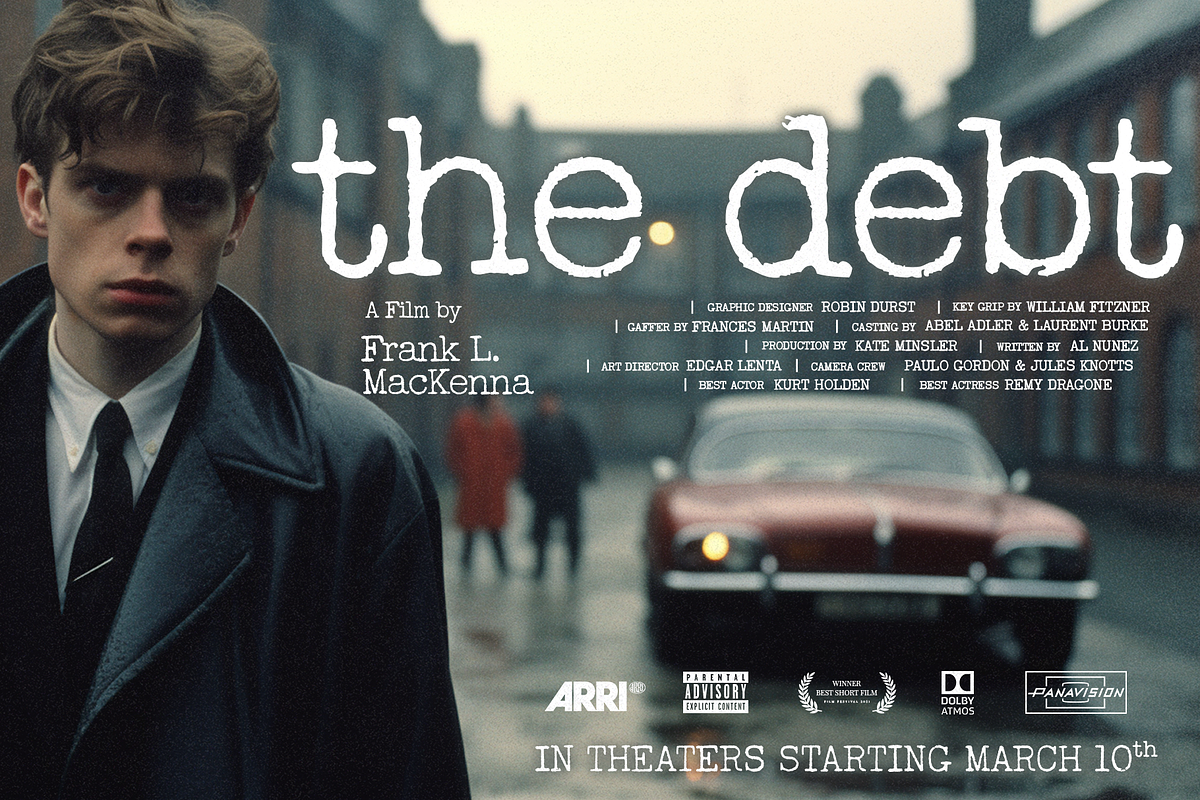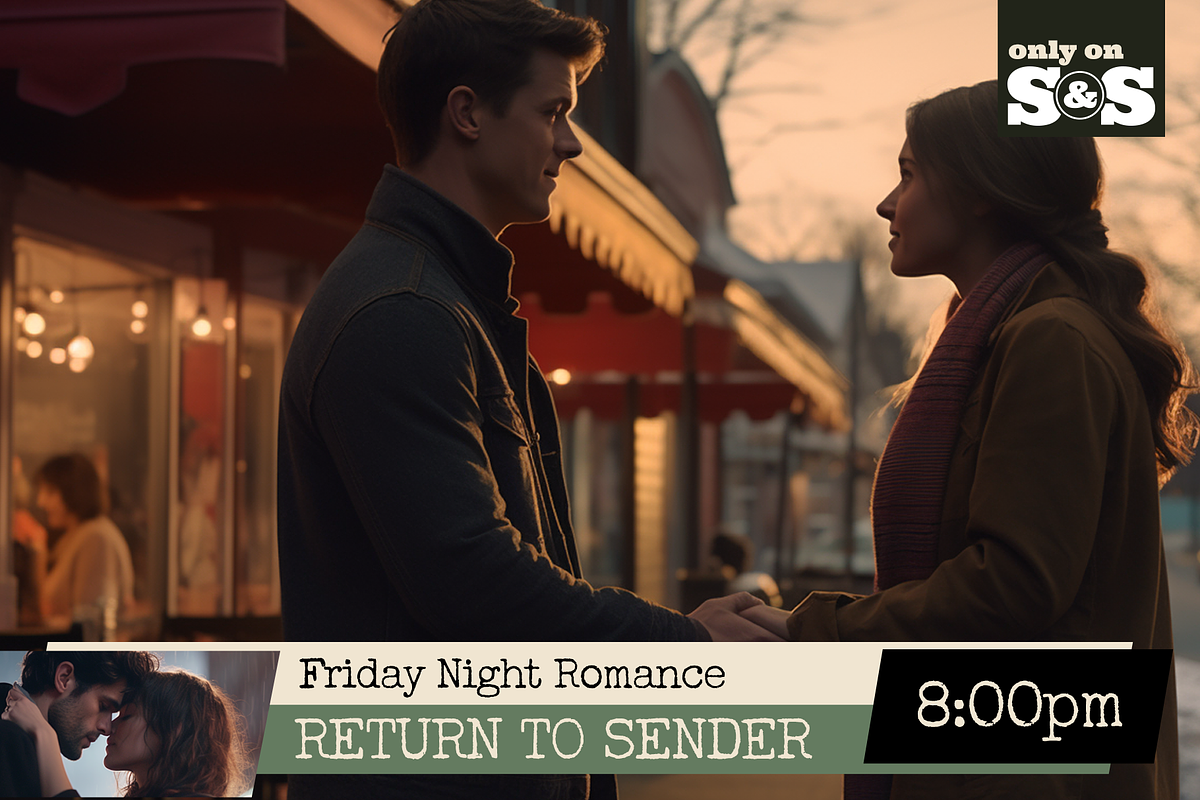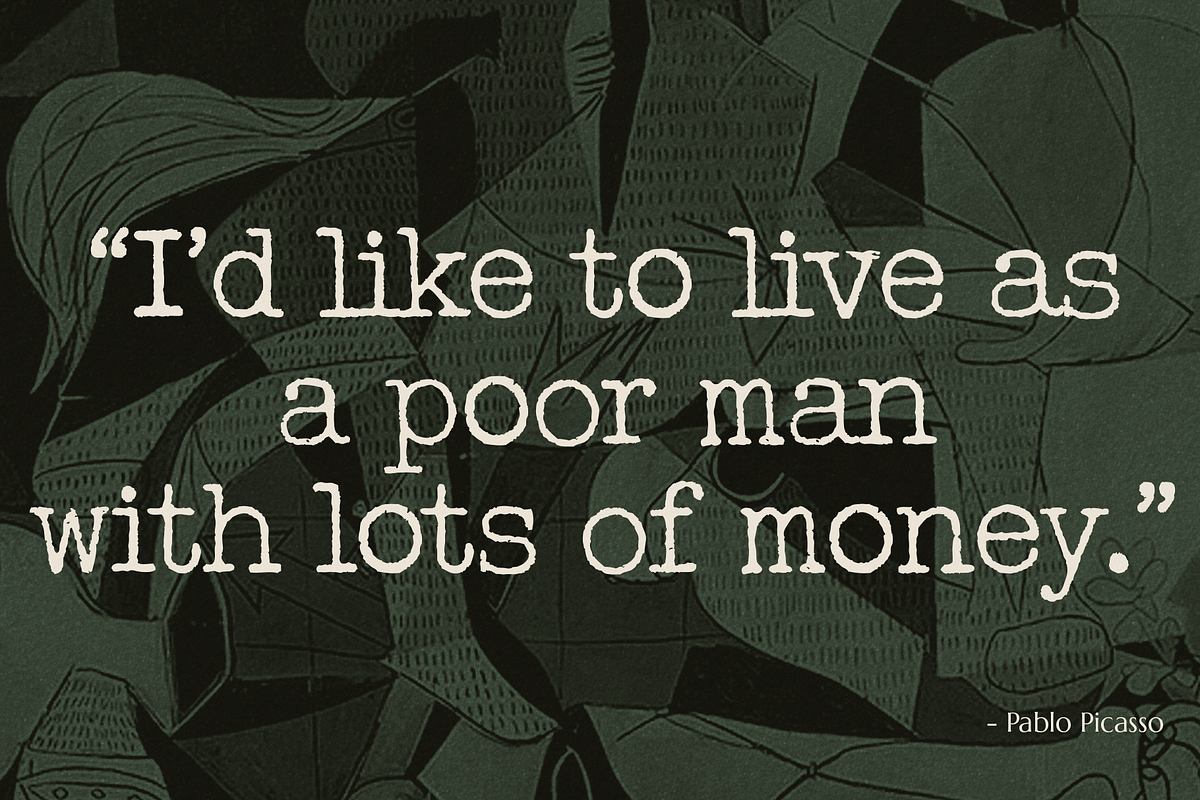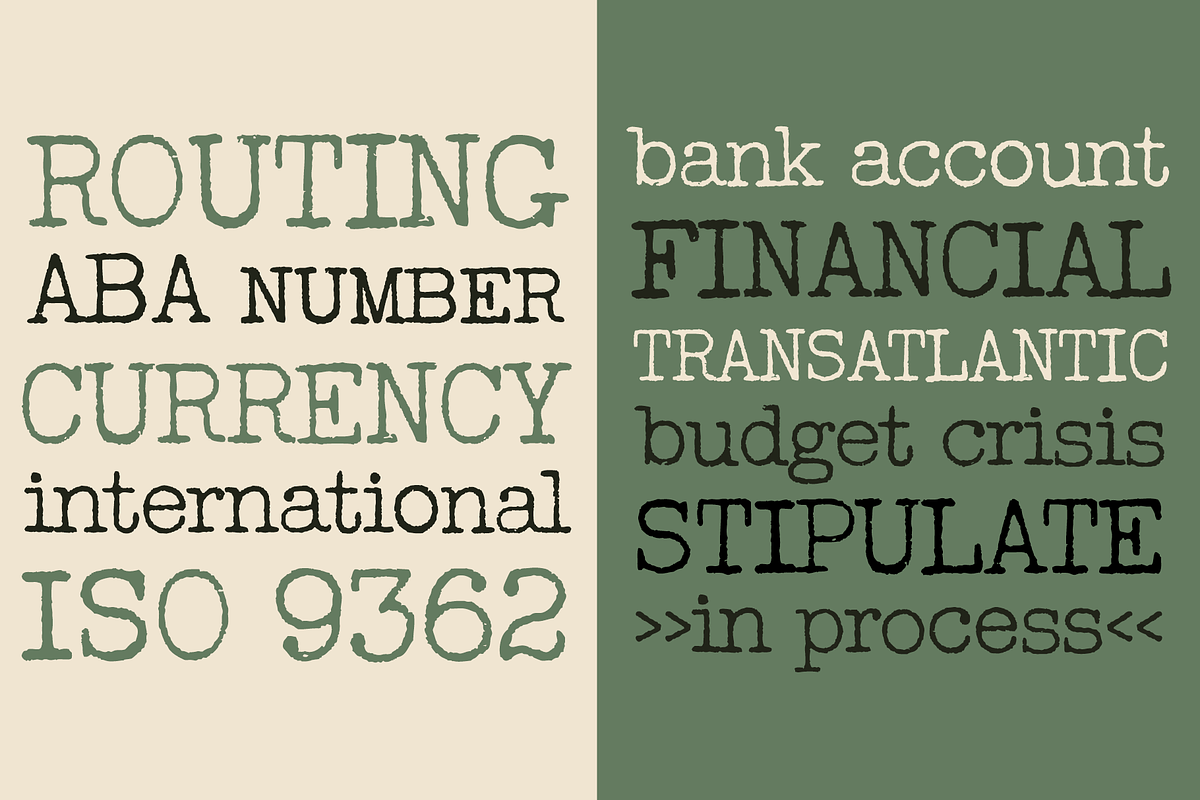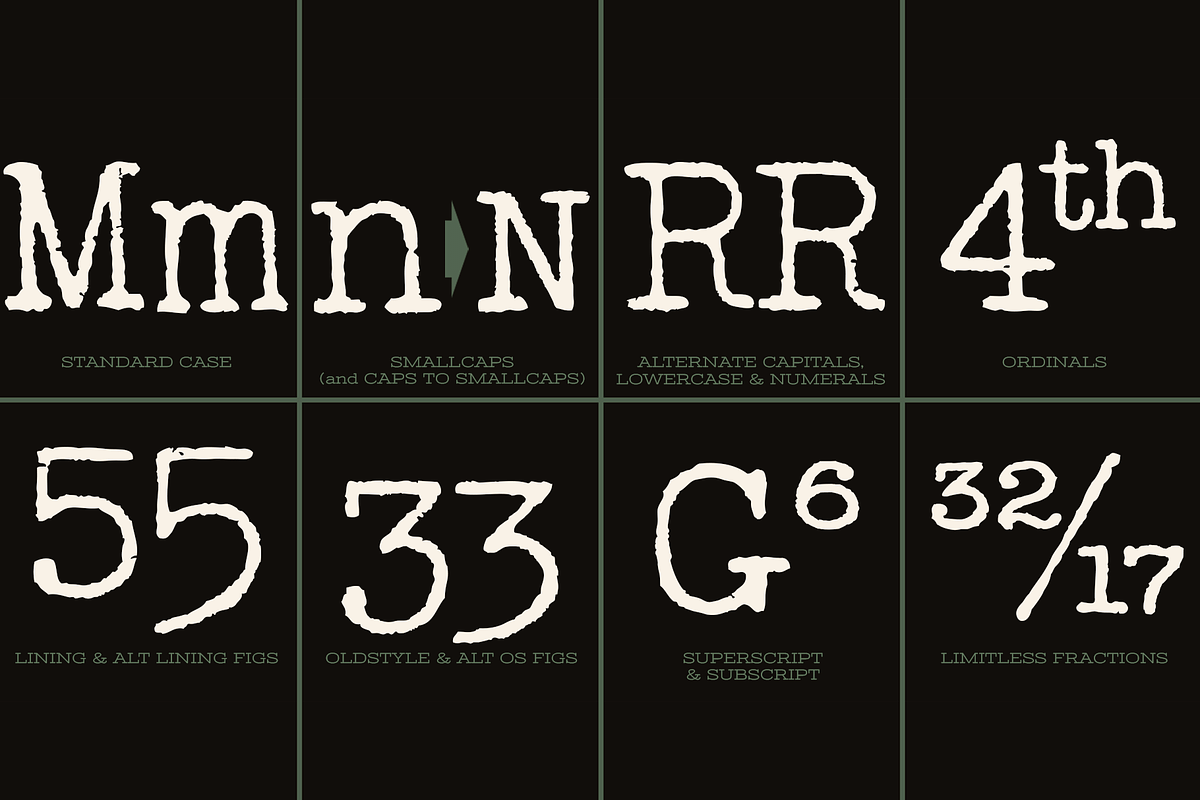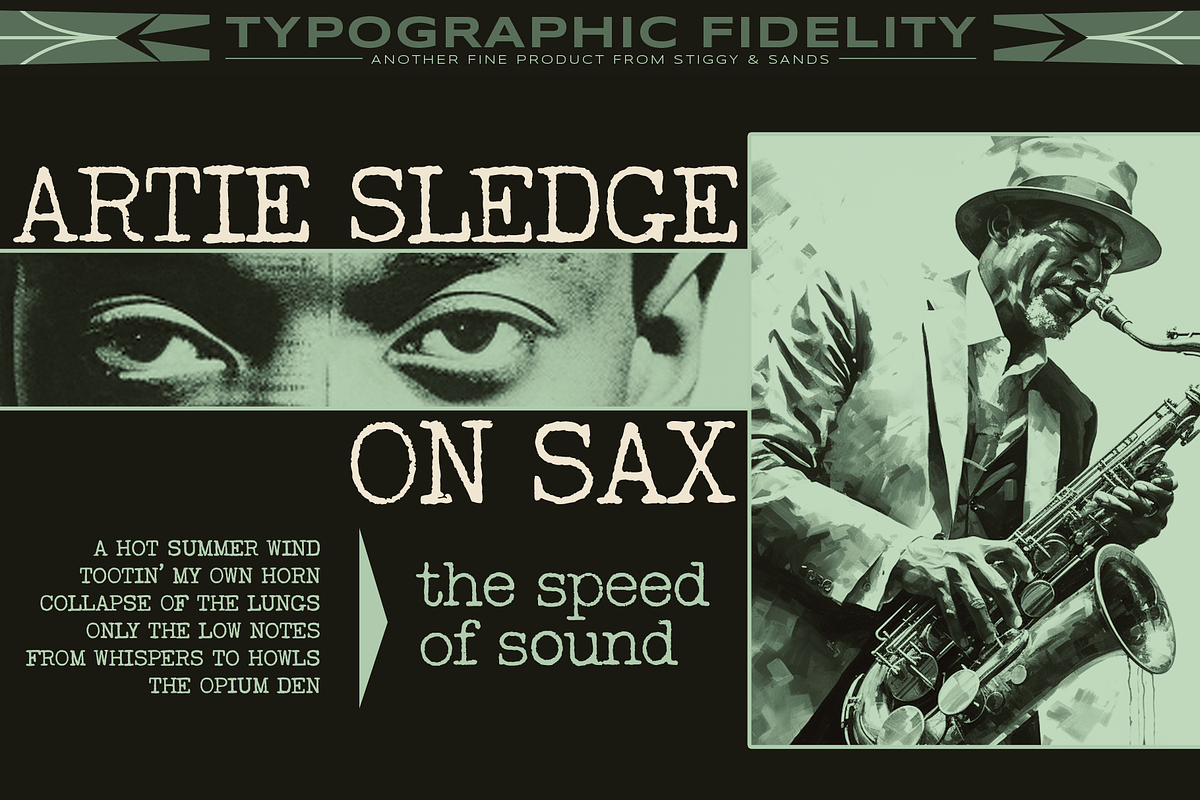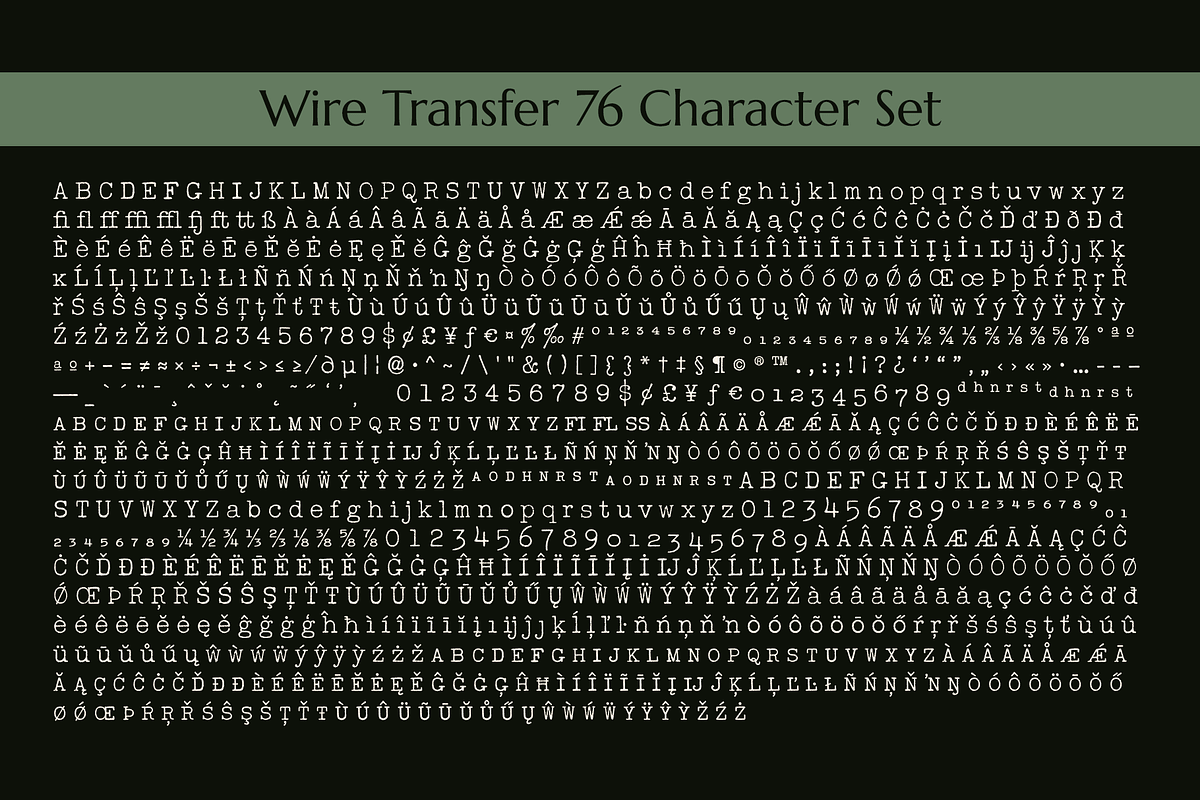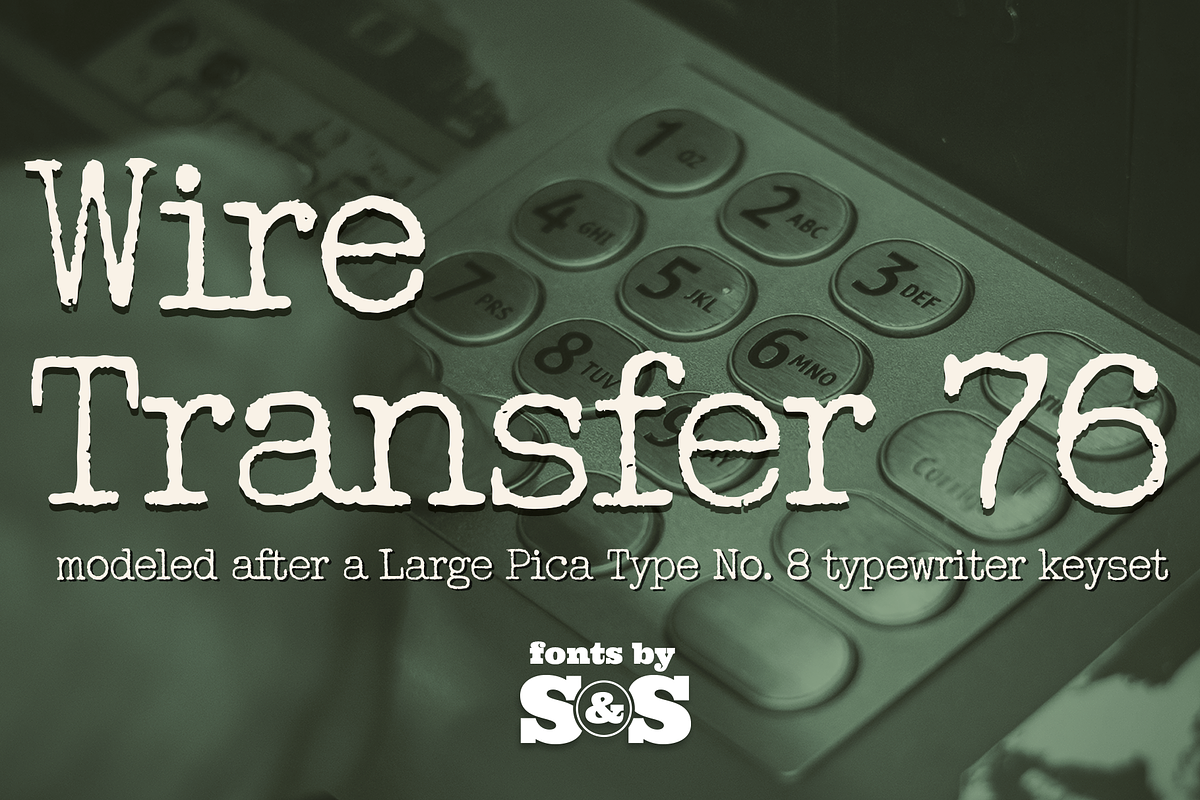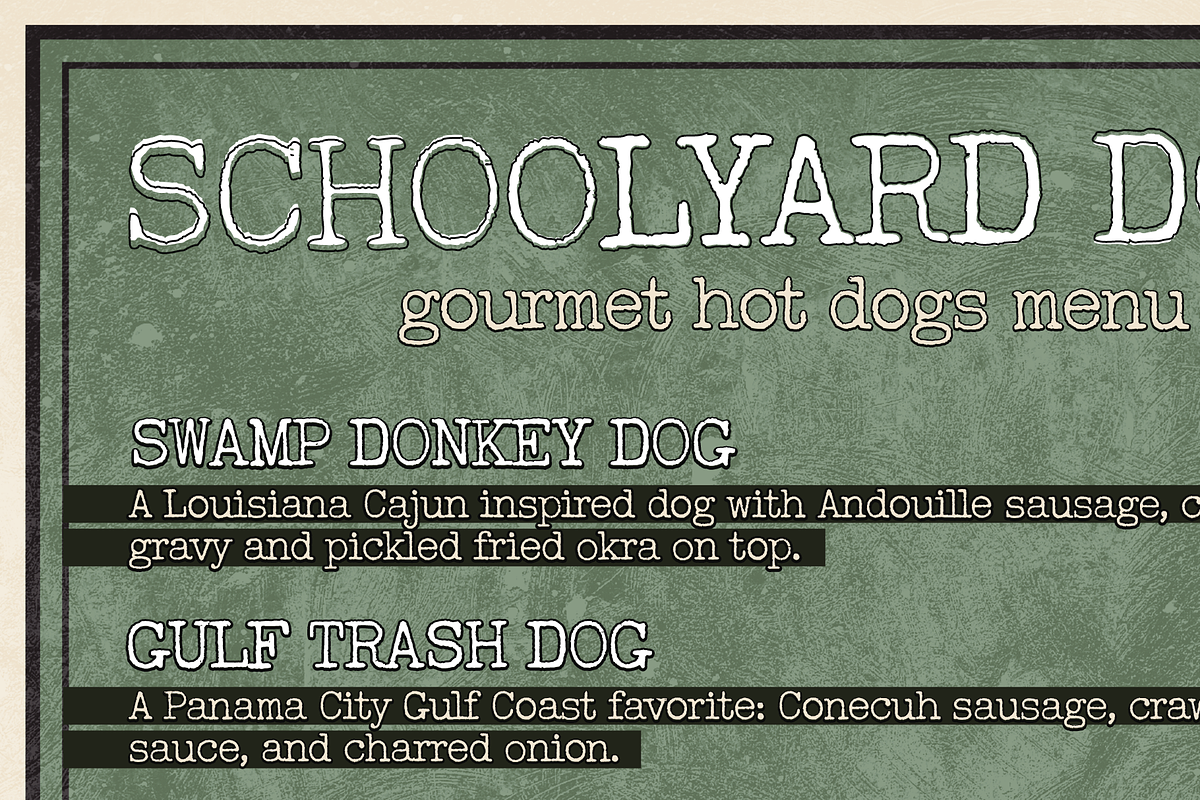
Wire Transfer 76
Wire Transfer 76 brings the unique individuality of the Large Pica Type No. 8 vintage typewriter keyset to the digital age. Antique typewriters would type with a warmth and appeal to them, primarily because of their unpredictable “grunge” results from force of keystrokes to ribbon and paper and we've tried to keep that flavor by adding an alternate set of Capitals, Lowercase,a nd Numerals that will auto swap in as you type adding subtle variance to the letters.
The SmallCaps and extensive figure sets add a more serious note to the nature of the typeface.
OpenType features include:
SmallCaps and Smallcaps Alts
Full set of Inferiors and Superiors for limitless fractions
Regular, Tabular and Oldstyle figure sets (along with Alternate versions of the figures)
Stylistic Alternates for Caps to SmallCaps conversion.